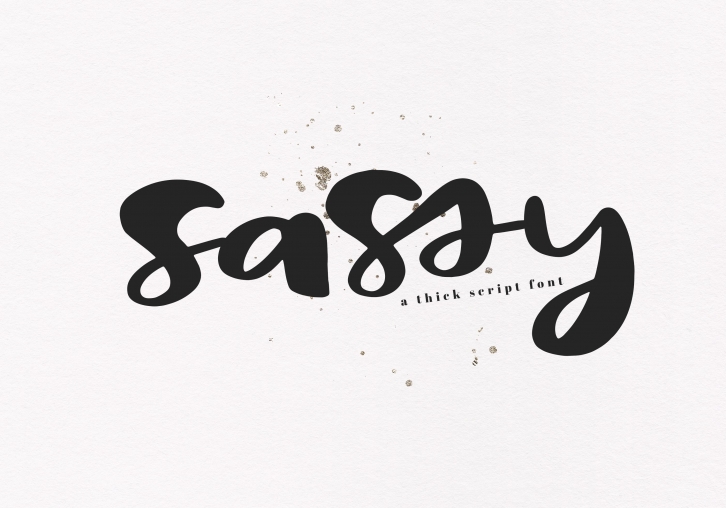
Sassy is a fun handwritten font with big, bold characters.
This font is perfect for quotes, headings, blogs, logos, invitations and more!
There are a few extra ligatures - see characters preview.